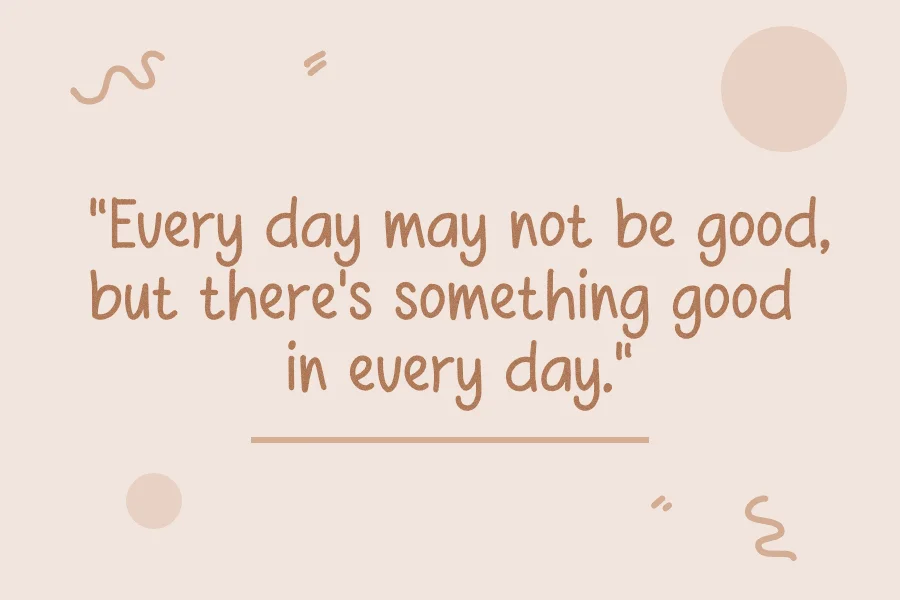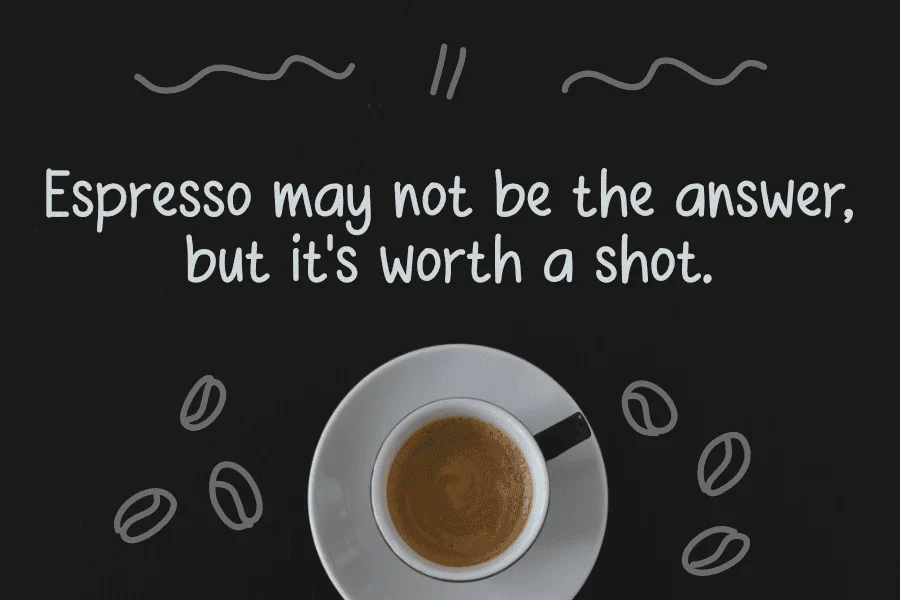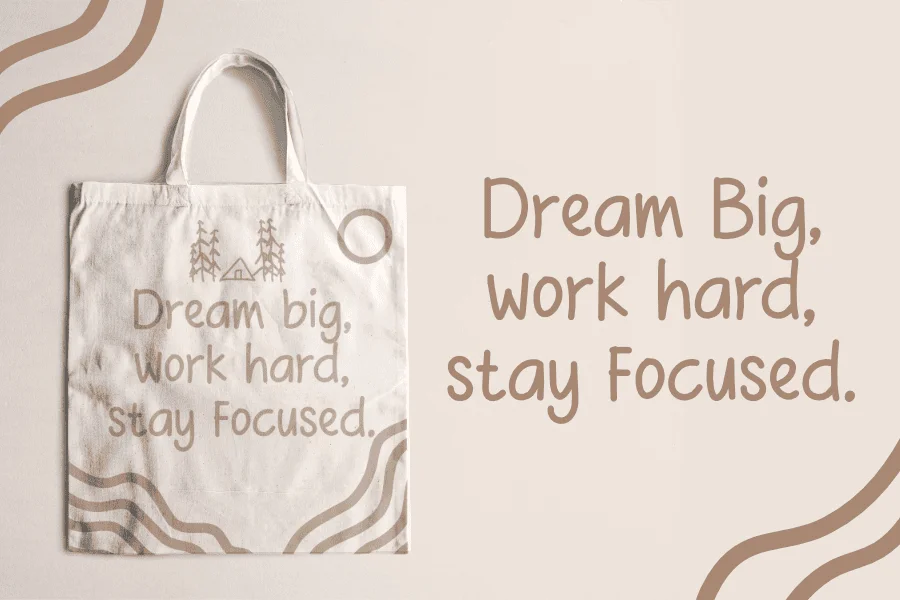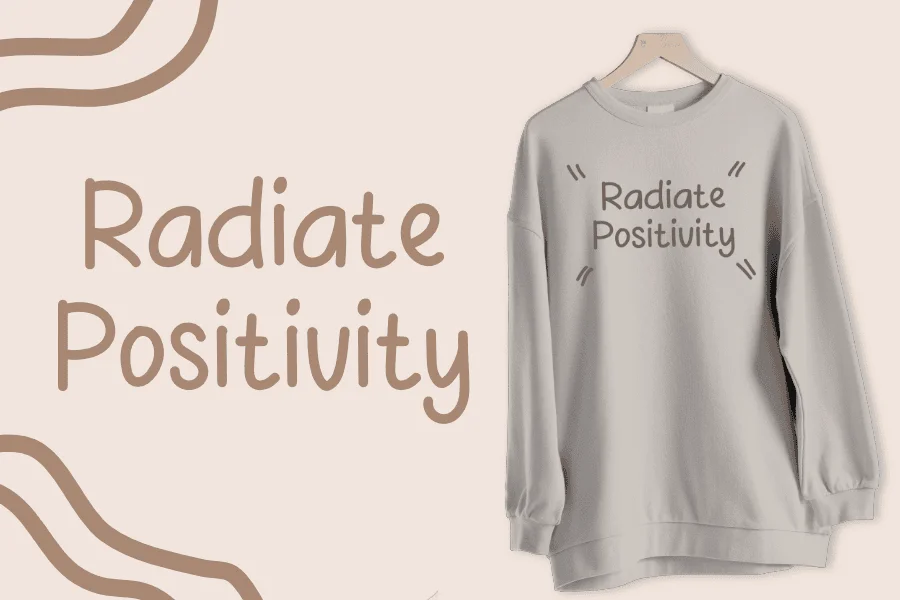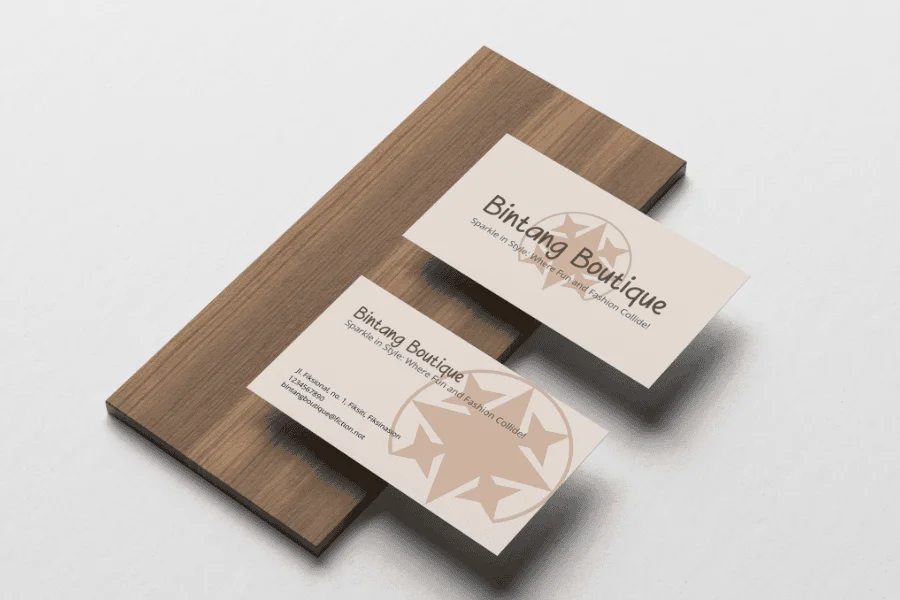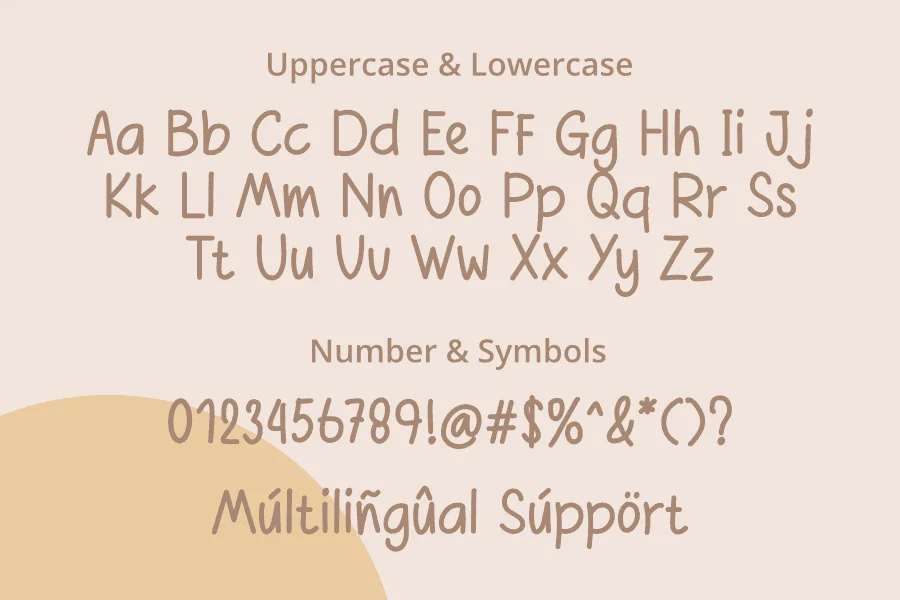
Infuse your designs with a touch of carefree joy using Handcaps, a distinctive display font that radiates a relaxed and happy vibe. Perfectly suited for a myriad of creative endeavors, this unique font effortlessly complements projects related to children, cartoons, humor, book covers, and captivating headlines. Let Handcaps be your go-to choice for injecting a playful spirit into your designs, making every visual element resonate with cheerful charm. Elevate your creations with the lighthearted personality of Handcaps – where every letter embodies the essence of a smile.